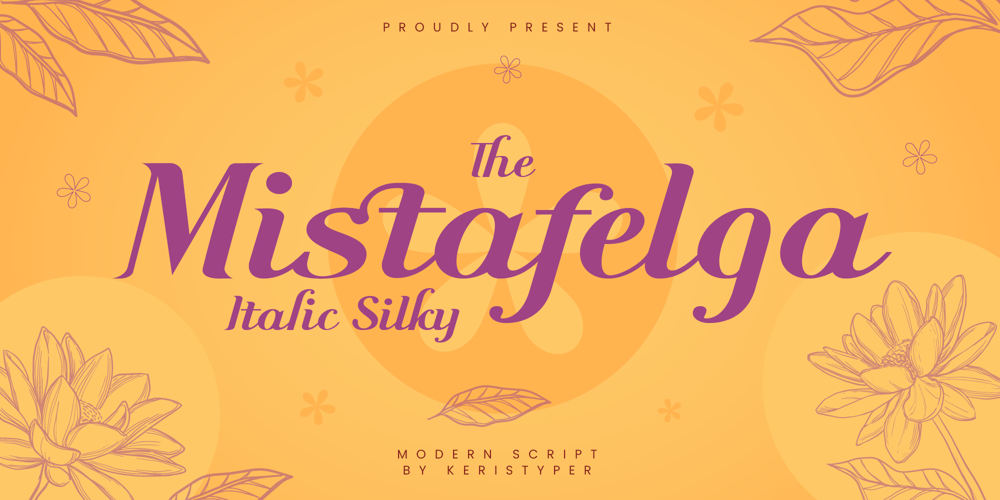
Mistafelga Font Family was designed by Tezar Tantular and published by Keristyper Studio. Mistafelga contains 1 styles and family package options. Mistafelga is an elegant Silky italic font designed for editorial use and inspired by calligraphy in the middle century. This font is good for logo design, Social media, Movie Titles, Books Titles, short text even long text letters, and good for your secondary text font with sans or serif.Featured: Standard Uppercase & Lowercase Numeral & Punctuation Multilingual : ä ö ü Ä Ö Ü ß ¿ ¡ Alternate & Ligature PUA encoded We recommend programs that support the OpenType feature and the Glyphs panel such as Adobe applications or Corel Draw. so you can use all the variations of the glyphs.Hope you enjoy our fonts!